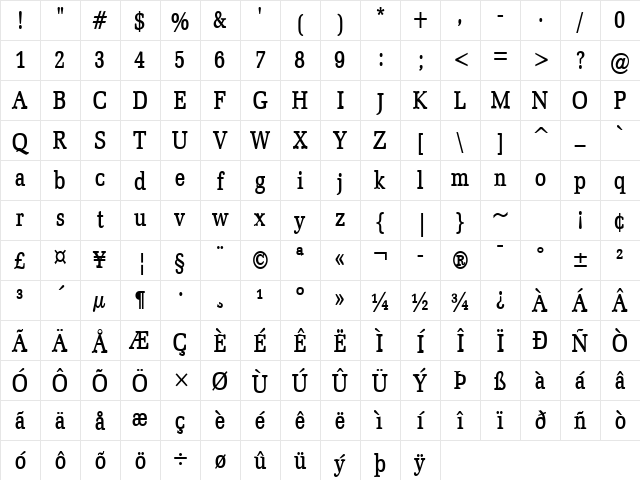
Bid Roman-Condensed Bold
Design Context for Bid Roman-Condensed
Bid Roman-Condensed is a composed and adaptable typeface that performs quietly and consistently across a wide range of design contexts. Its bold stroke weight gives it real presence on the page. Its narrow stance lets it pack a punch even in space-constrained designs.
Pro Tip: Use Bid Roman-Condensed in both headline and body roles to test its range before committing to a single application.